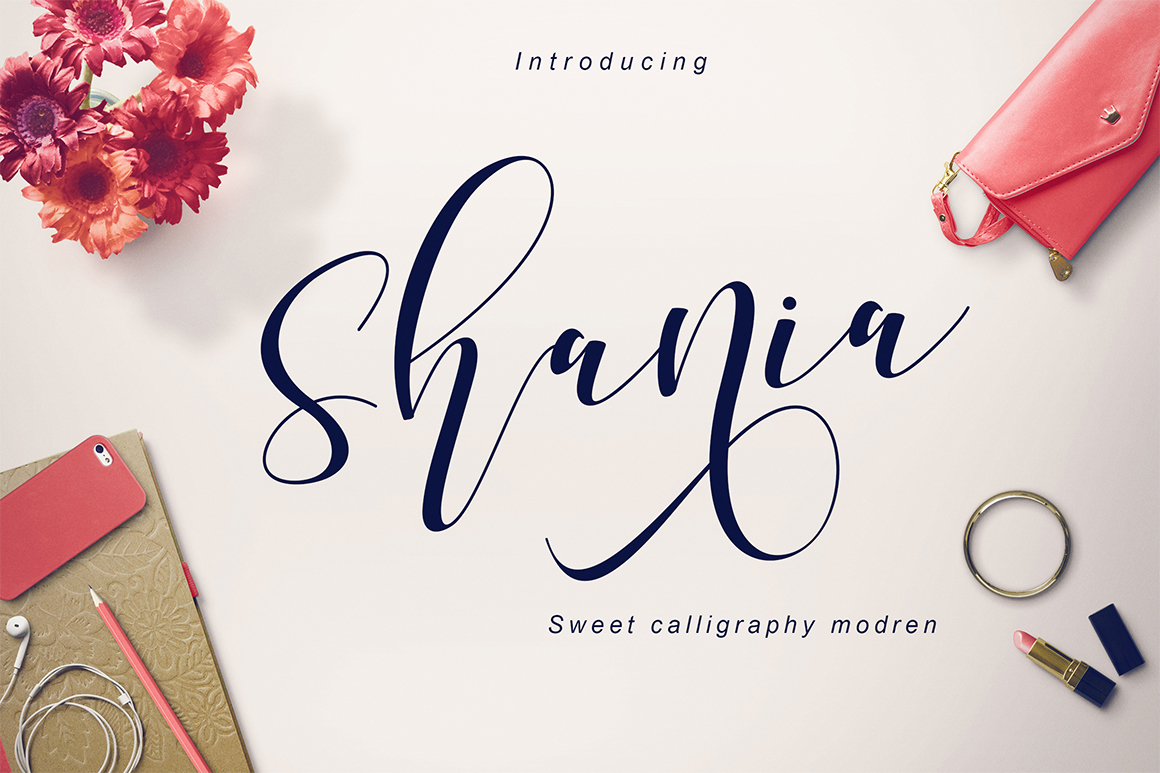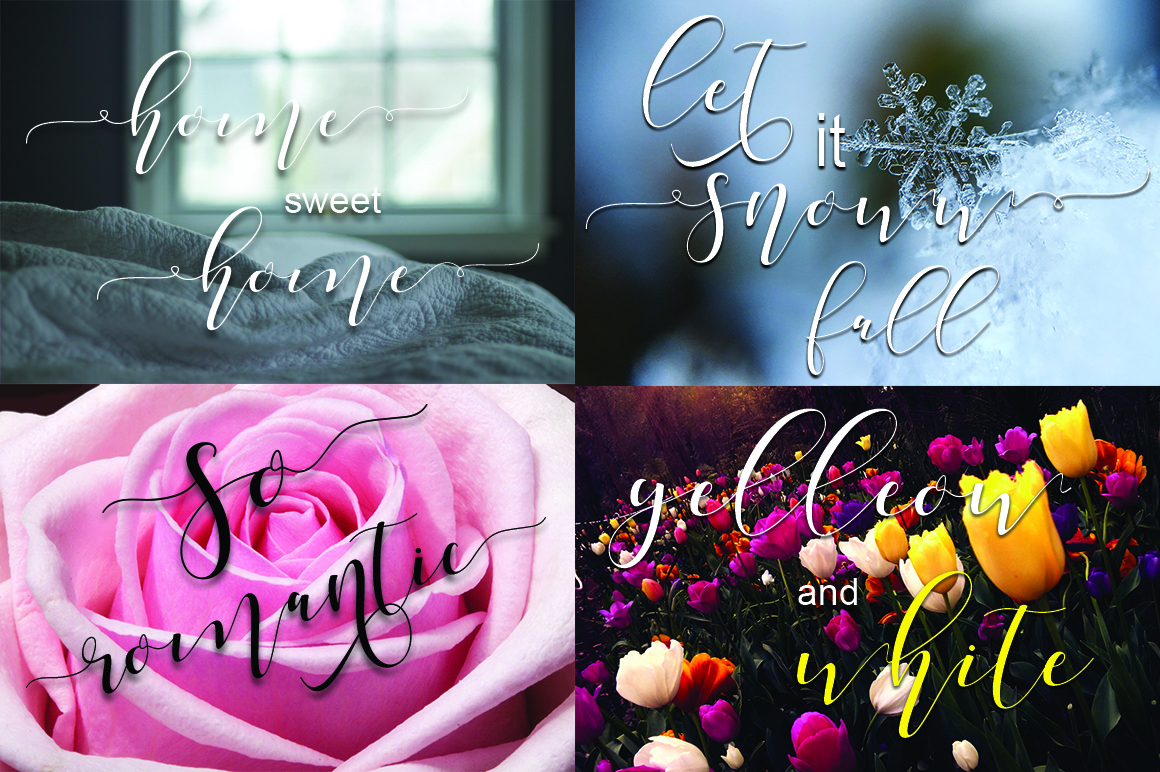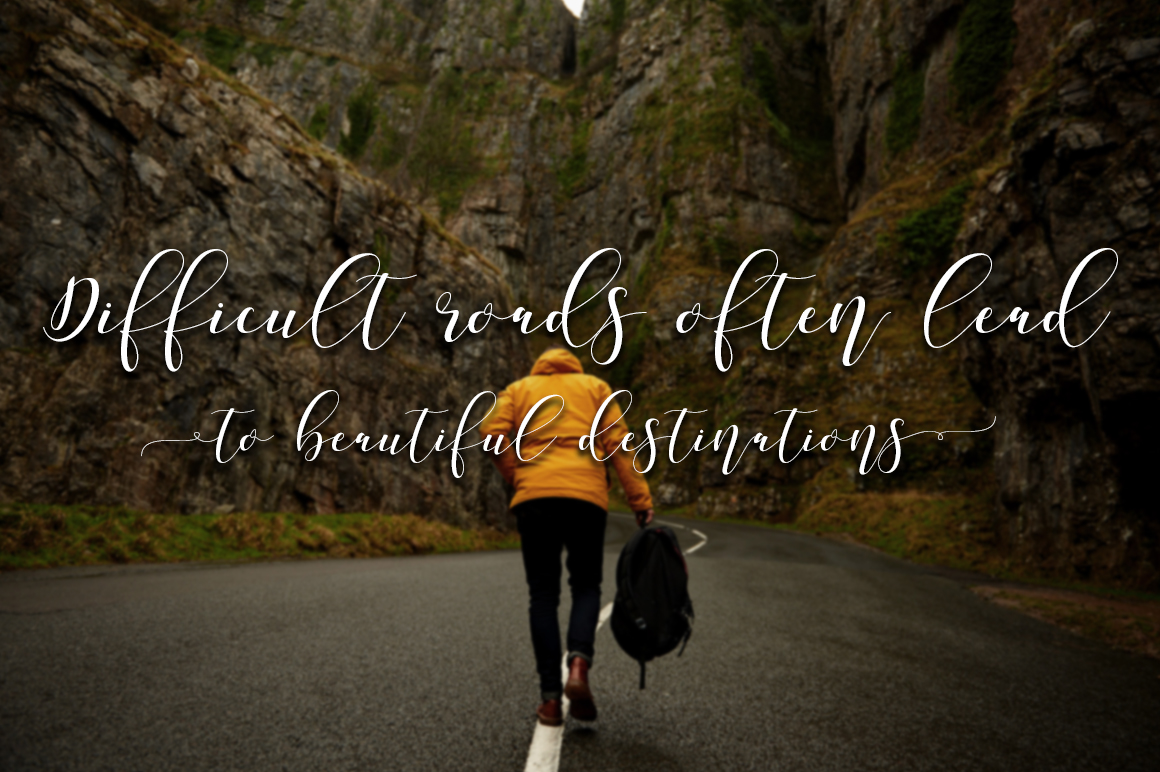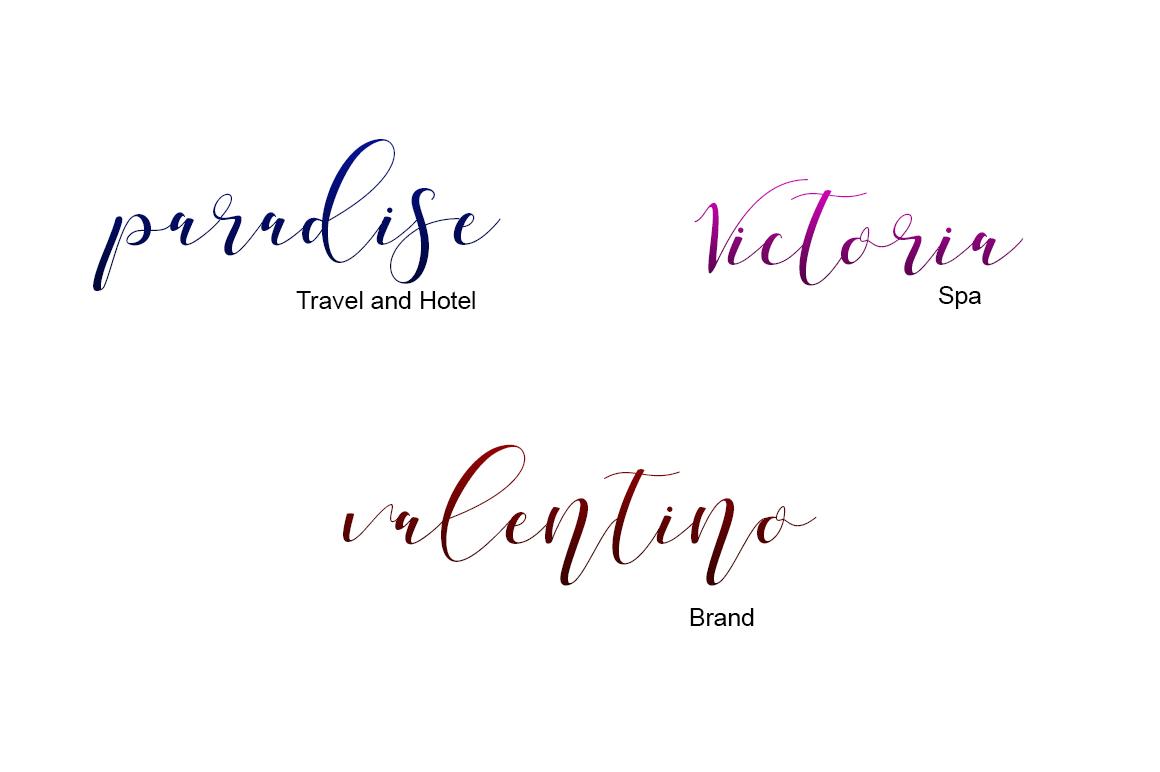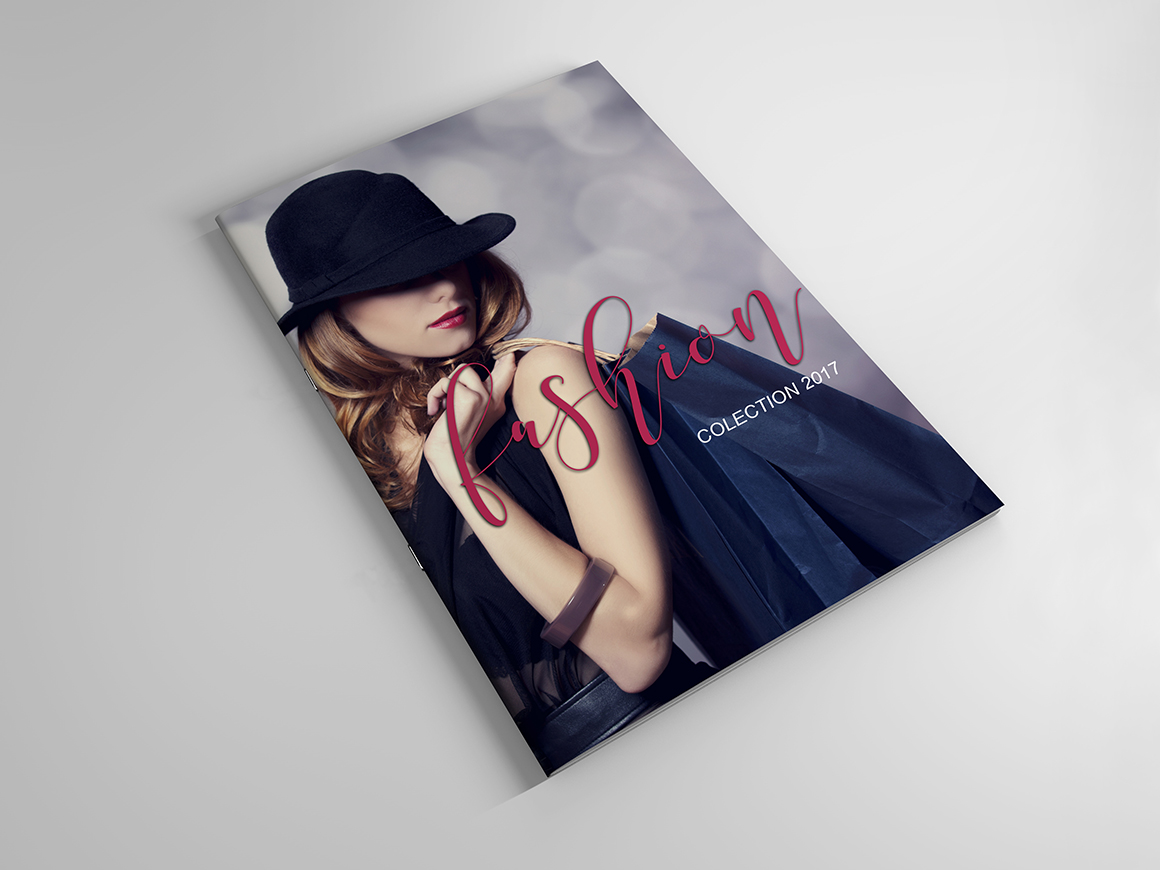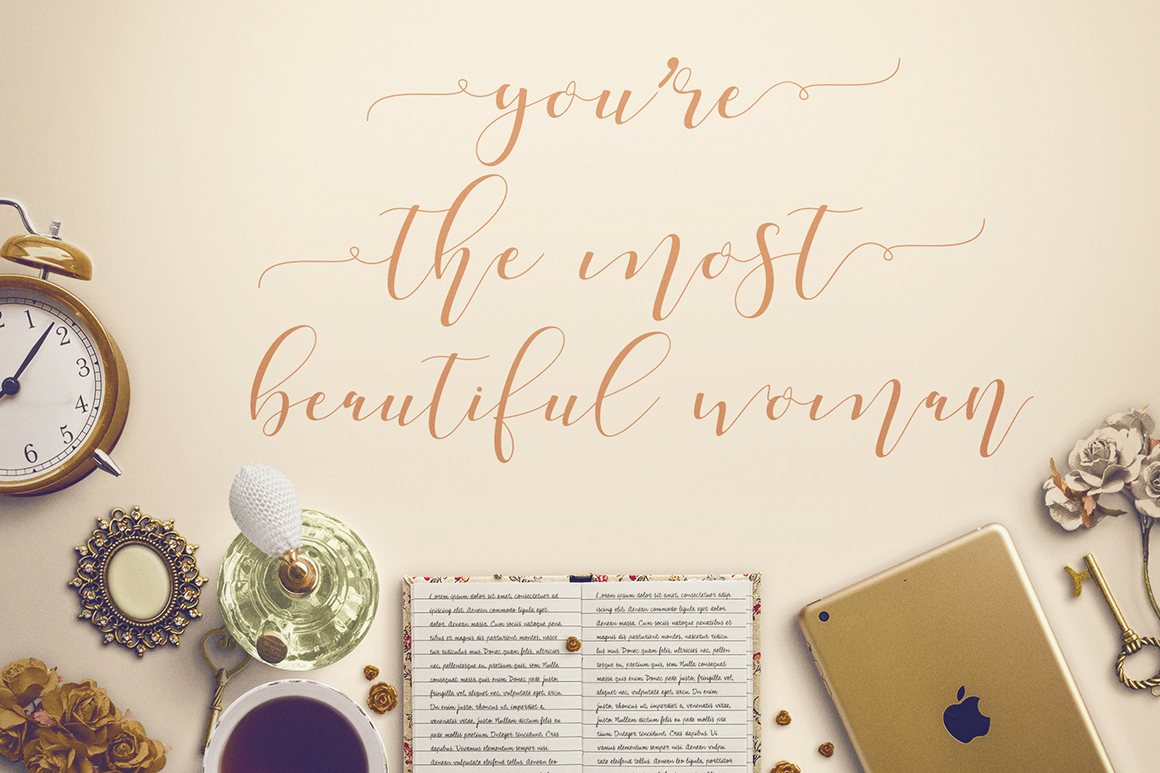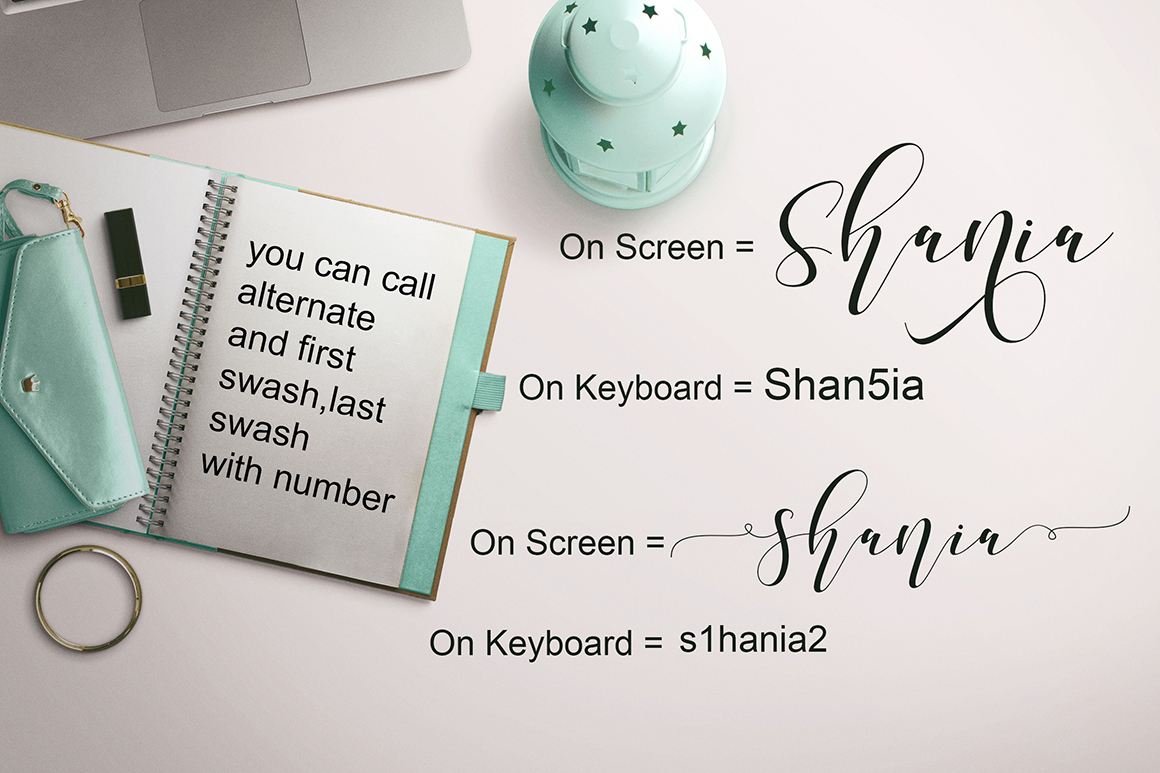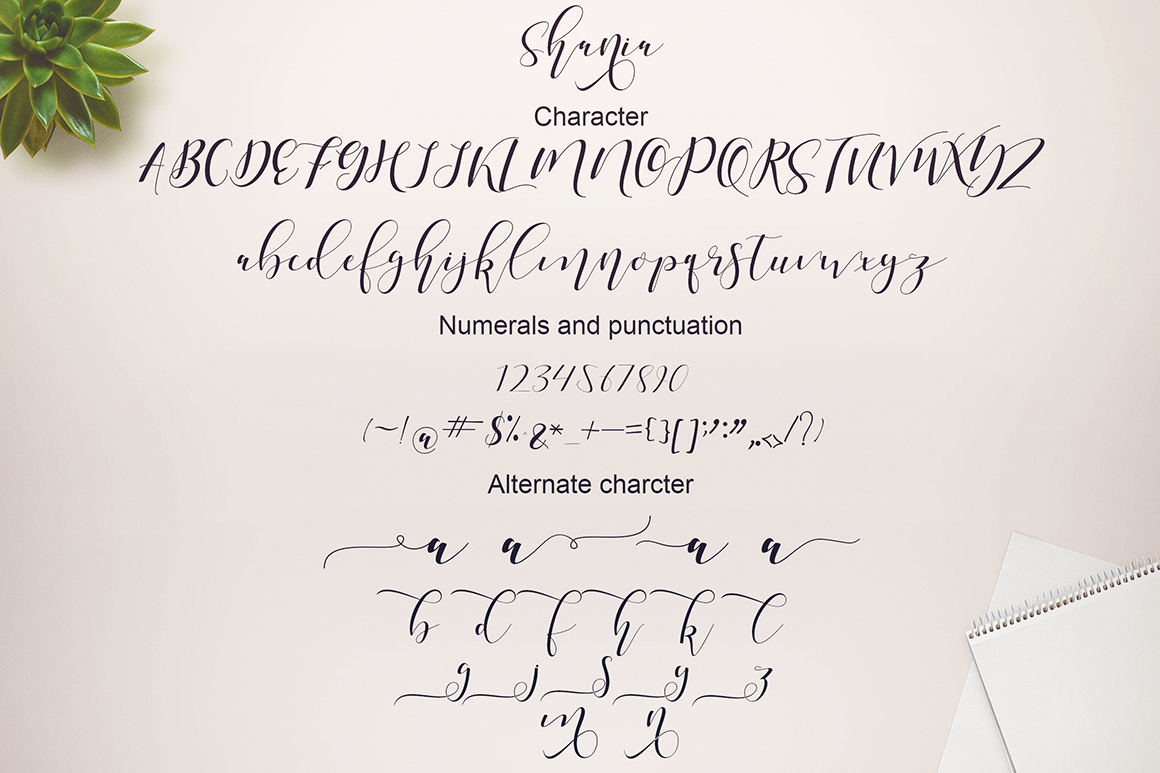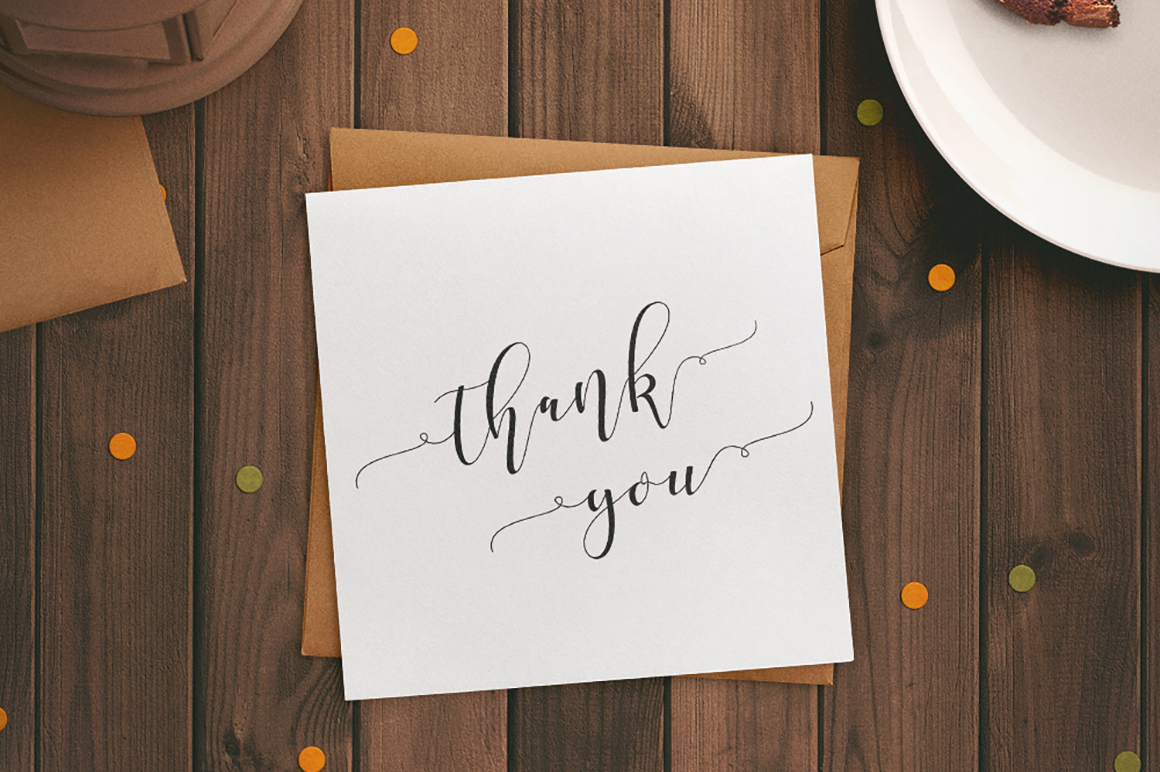
HomeScript FontsShania Font Script Fonts Shania Font FacebookXPinterestWhatsApp Shania Font Poster 2 Shania Font Poster 3 Shania Font Poster 4 Shania Font Poster 5 Shania Font Poster 6 Shania Font Poster 7 Shania Font Poster 8 Shania Font Poster 9 About Shania Font Shania is a sweet looking, hand made font that features 270 unique glyphs. DOWNLOAD ON CREATIVE FABRICAThis font is sold and delivered by Creative Fabrica. Font Canyon may earn a commission if you buy through this link. People also explored Michaela Font Girl Font Stigma Halloween Font Wonderfull Mother Font Obligod Bold Font Hi Love Font Spac3 Font Athletic Heather Bella Canvas 3001 Mock Amelia Script – Draft Version 327 0 TagsShania Font Previous articleAnisha FontNext articleTropical Vibes Font LEAVE A REPLY Cancel reply Comment: Please enter your comment! Name:* Please enter your name here Email:* You have entered an incorrect email address! Please enter your email address here Website: Save my name, email, and website in this browser for the next time I comment. Personal Use Free Critical Personal Use Free Read more about this font Ernesthuge Personal Use Free Read more about this font Squealer Personal Use Free Read more about this font Krabuler Personal Use Free Read more about this font BLOG To increase your work productivity, choose the most readable fonts. In today's fast-paced work environment, where digital communication and information consumption are integral to our daily routines, the choice of fonts can significantly impact... Free Fonts Risk: Why Free Fonts Can Be Dangerous for Designers Best Fonts for T-Shirt Design – Top 2025 Picks Free vs Paid Fonts: Why Investing in Premium Fonts Is Worth It